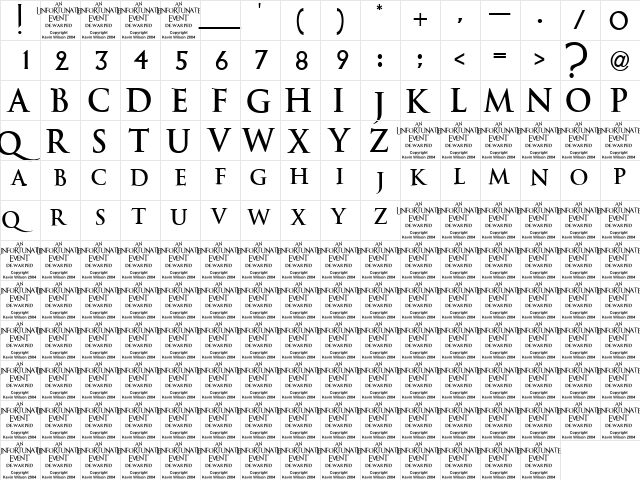
An Unfortunate Event DeWarped Regular
Design Context for An Unfortunate Event DeWarped Typeface
An Unfortunate Event DeWarped is a composed and adaptable typeface that performs quietly and consistently across a wide range of design contexts.